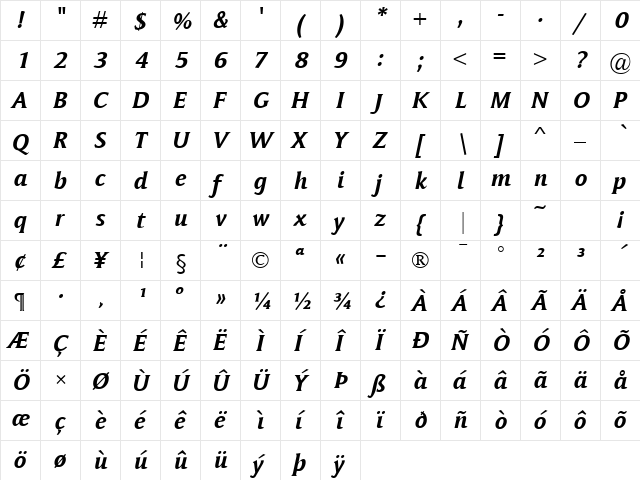
Memento BoldItalic
Design Context for Memento Typeface
Memento offers clean, dependable letterforms without strong stylistic allegiance, making it a practical choice for designers who need flexibility. The slanted form adds forward momentum and visual energy. The heavy weight commands attention and anchors typographic hierarchies.
Pro Tip: Use Memento for emphasis, pull quotes, and subheadings where its slanted energy can add rhythm to the layout.